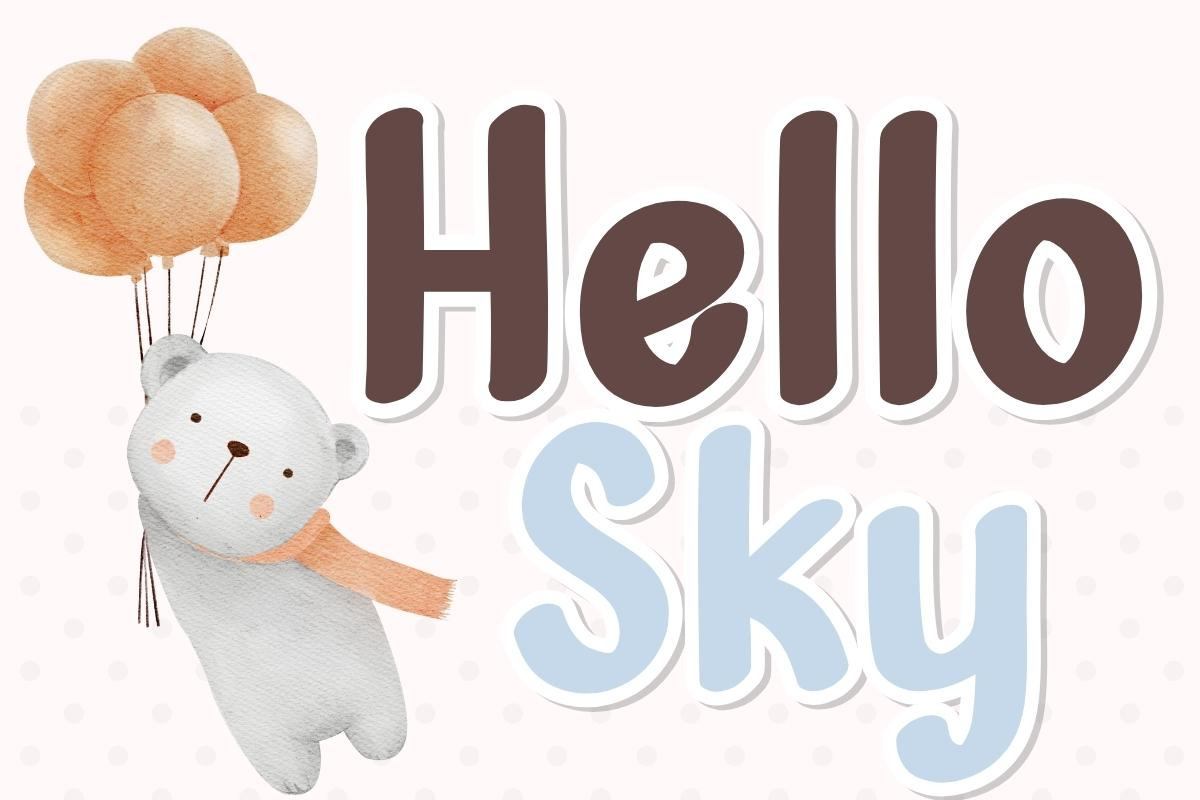
Hello Sky - Handwritting Free Download
Hello Sky - Handwriting Font Free Download is a light, airy typeface that captures the essence of casual elegance. With its smooth strokes and natural flow, this font mimics real handwriting beautifully, making it ideal for personal projects, lifestyle branding, Instagram quotes, wedding stationery, and blog headers that need a friendly, approachable vibe.
Hello Sky - Handwriting Font Free Download brings a personal touch to your designs, helping you communicate warmth and authenticity with every word. Whether you're telling a story or designing a heartfelt message, this font adds charm and clarity. Try it today to see how it lifts your design with handwritten magic.